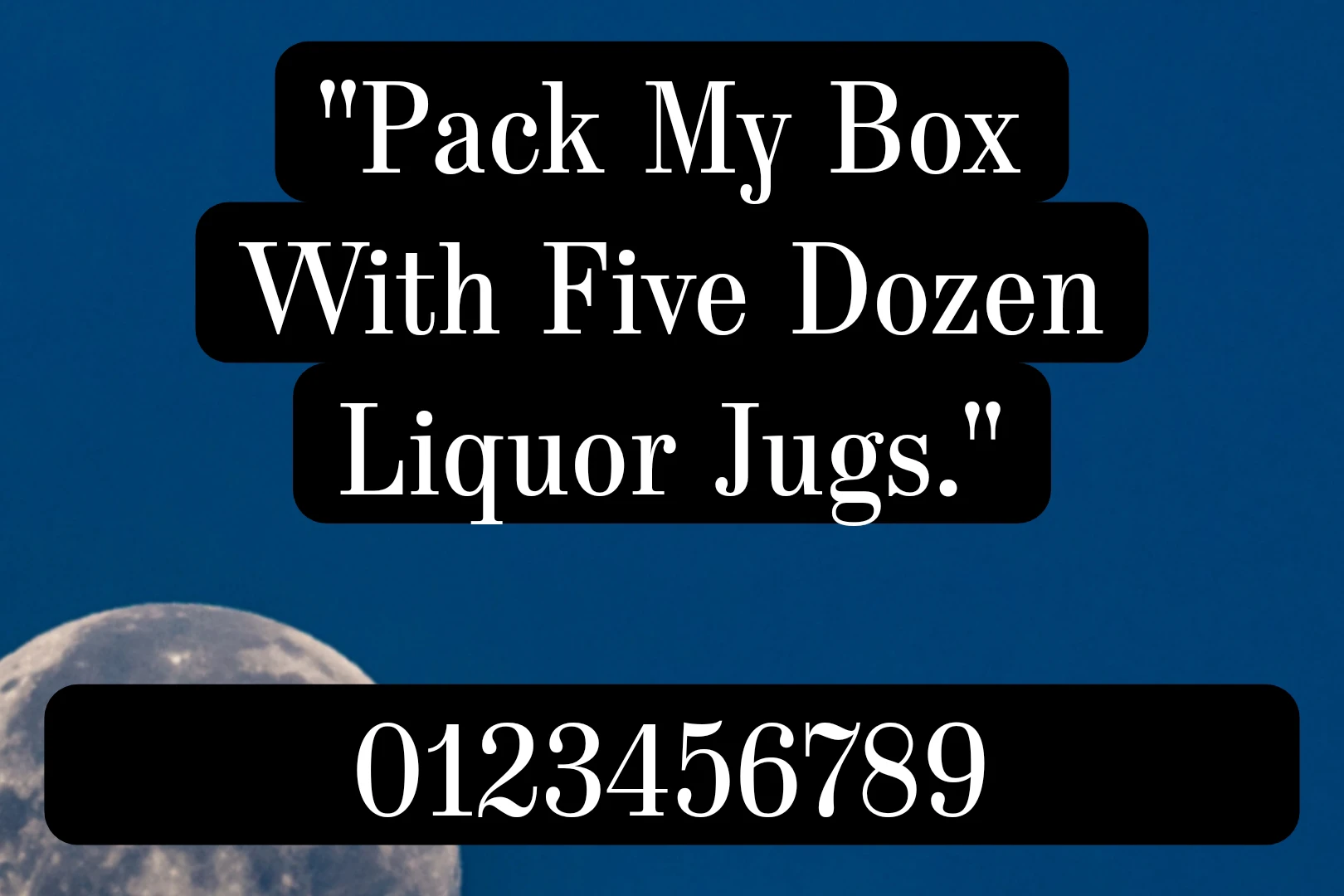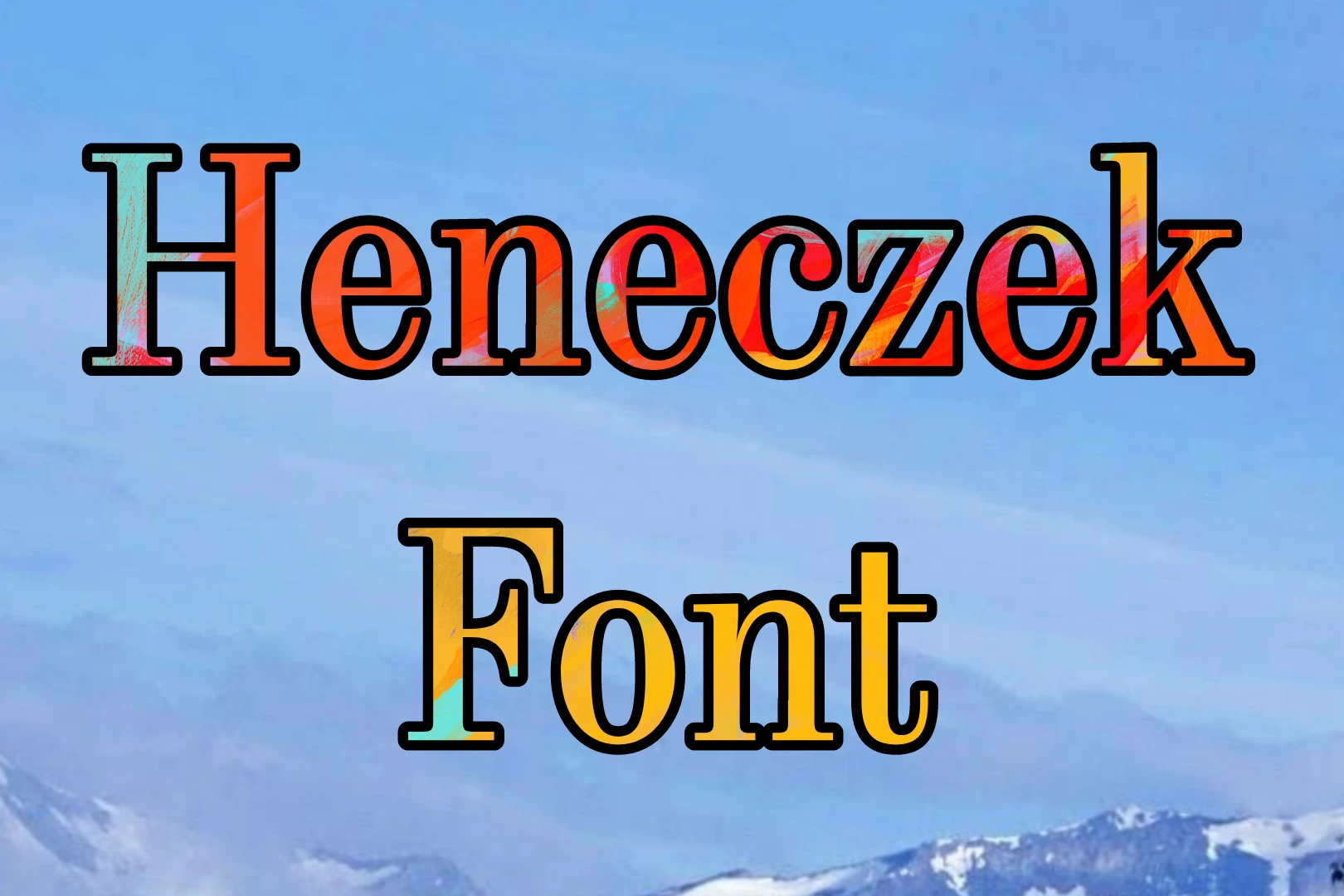
The design of Heneczek Font is distinguished by its fluid strokes, balanced proportions, and attention to detail. Whether used for headlines, body text, or graphic elements, this font exudes sophistication and professionalism, making it a popular choice among designers and businesses alike. You can match this font with different textures like Axettac Font to create a cool style for your projects. It’s made to make your work look nice and grab attention. It’s great for writing the main part of your project.
With its broad language support and various weights and styles, Heneczek Font caters to diverse design needs, ensuring seamless integration into various projects. From print to digital media, this font delivers consistent and impressive results, elevating the visual impact of any composition.
While specific details about the designer of Heneczek Font may not be publicly disclosed, the font’s creation reflects the expertise and creativity of skilled typographers dedicated to delivering high-quality typography. The meticulous craftsmanship and attention to detail evident in Heneczek Font underscore the designer’s commitment to excellence.
This elegant font could be perfect for designing invitations or announcements for events celebrating Polish culture or literature. Its classic yet modern style would add a touch of sophistication to posters advertising Polish-language book launches or cultural festivals. With its rugged and nature-inspired design, Sudety would be ideal for branding outdoor adventure companies or products. It could be used on signage for hiking trails, camping equipment packaging, or even for branding a line of organic skincare products inspired by the natural beauty of mountain landscapes.
Graphic designers seeking a sophisticated typeface for branding and marketing materials. Businesses aim to establish a strong visual identity through elegant typography. Content creators looking to enhance the aesthetic appeal of their digital and print publications.
Individuals are seeking a stylish and versatile font for personal projects, invitations, and social media graphics. Pairing this font with textures like Eboracum Font can give your projects a cool vibe. It’s designed to make your work stand out and look attractive. It’s perfect for writing the main part of your project.
| Designer | Sebastian Lester |
| Style | Sans-Serif |
It supports various languages, ensuring accessibility and usability across different regions and cultures. Its extensive language support enhances its versatility and applicability in diverse design contexts.
Yes, it typically offers various weights and styles to accommodate different design requirements. From light and italic variations to bold and condensed styles, Heneczek Font provides versatility and flexibility in typography.
This Font is well-suited for web design projects, thanks to its readability and aesthetic appeal. Designers can leverage this font to create engaging and visually appealing websites that captivate audiences and communicate brand identity effectively.